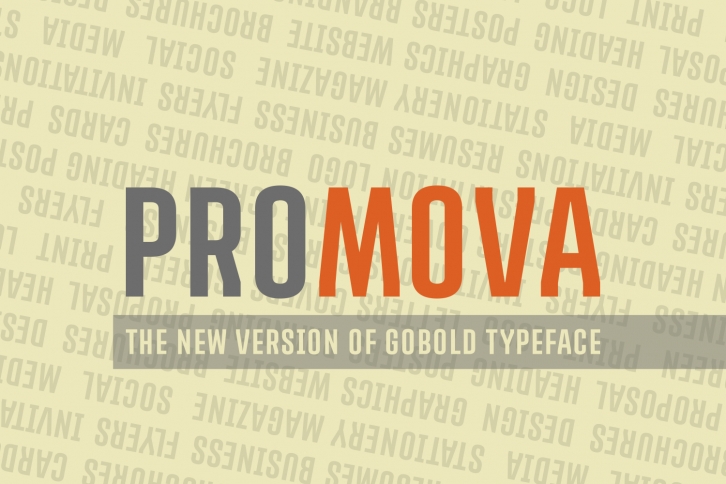
Promova is a new variant of the popular Gobold family.
The Promova type comes in 2 weights: Regular & Italic. It will leave guaranteed strong impression and works great for both print & digital designs.